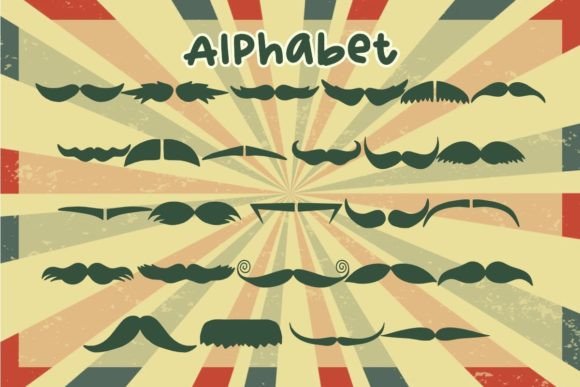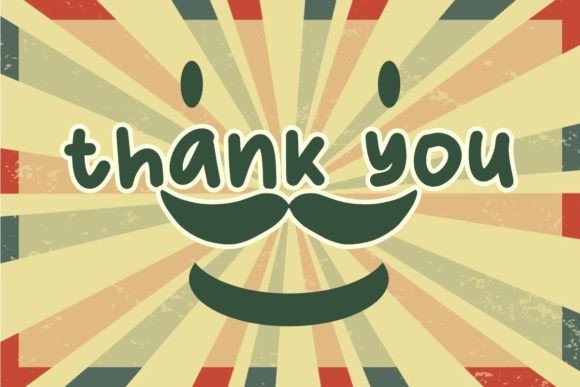
Introduction to Daddy’s Mustache Font
As designers, we’ve all been there – staring at a blank canvas, trying to come up with the perfect idea to make our project stand out. It’s that moment of creative frustration, but also excitement, when the perfect design element suddenly pops into our minds. For many of us, that element is a well-placed mustache – the ultimate symbol of sophistication and whimsy.
Enter Daddy’s Mustache Font, a high-quality dingbats font that brings a touch of playfulness to any design project. With its transparent background and unique mustache characters, this font is the perfect addition to your design resource arsenal. Whether you’re working on a Father’s Day card, a t-shirt design, or web graphics, Daddy’s Mustache Font is sure to bring a smile to your face and a touch of creativity to your project.
Key Features of Daddy’s Mustache Font
- High-quality, hand-drawn design with a unique, quirky feel perfect for creative projects.
- Transparent background option allows for seamless integration with various design elements.
- Unique characteristics include a bold, expressive style and a wide range of customization options.
Honest Review: Daddy’s Mustache Font
As a designer, I’ve had the pleasure of working with various fonts for my creative projects, and I recently stumbled upon the Daddy’s Mustache Font. I was curious to see what it had to offer, and I’m happy to share my thoughts with you.
What works well: ✨ The font has a fun and quirky vibe to it, perfect for projects that need a touch of whimsy. The high-quality design ensures that it looks great on any background, including transparent ones, making it a great addition to any design resource. Plus, it’s available for free download, which is a definite plus in my book.
- Works well with transparent backgrounds
- Perfect for creative projects
Limitations: ⚠️ The font is a bit limited in terms of its versatility, and it may not be suitable for all types of projects. Additionally, the free version has some restrictions on commercial use, which may be a drawback for some designers.
Overall impression: I think the Daddy’s Mustache Font is a great addition to any design resource, and it’s perfect for projects that need a fun and quirky touch. While it may have some limitations, it’s definitely worth checking out for any designer looking for a high-quality, free font.
To get the most out of the Daddy’s Mustache Font, experiment with different font sizes, colors, and combinations. You can also use it in conjunction with other design elements, such as images or graphics, to create visually appealing designs. Don’t be afraid to try new things and push the boundaries of what’s possible with this unique font.
The Daddy’s Mustache Font is perfect for a variety of creative projects, including social media graphics, posters, flyers, logos, brochures, presentations, and documents. Its unique design and high-quality make it a valuable design resource that can be used in many different contexts.